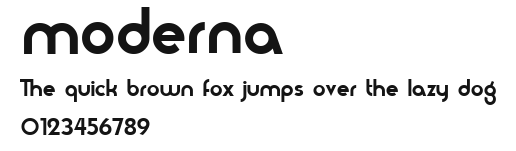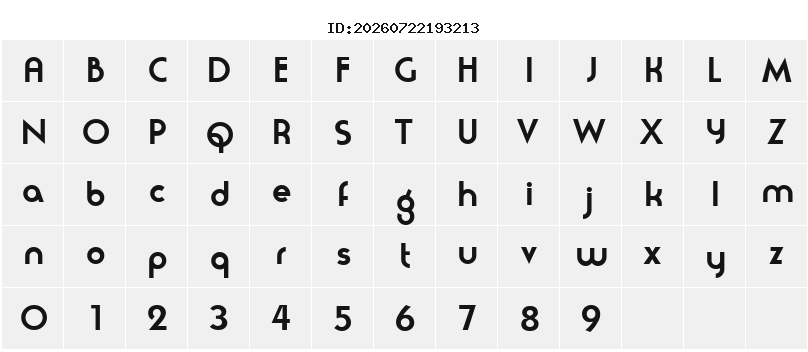
moderna Preview
About moderna.ttf
moderna.ttf is a modern, elegant sans-serif font designed for ultimate readability and visual harmony. Perfect for branding, headlines, web design, and print materials.